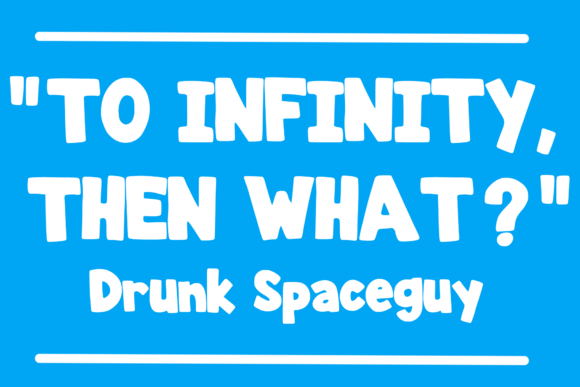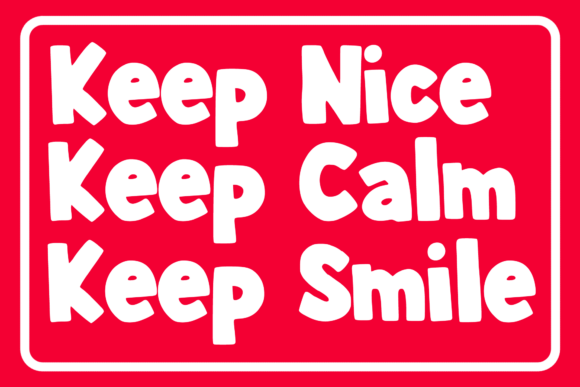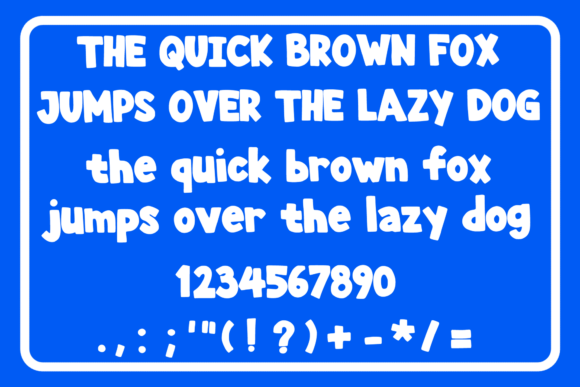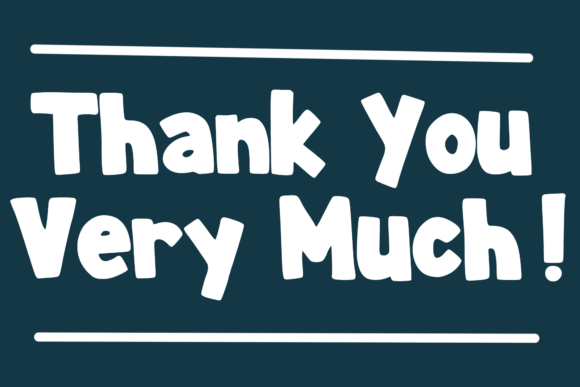
Unleashing the Fun with Big Bold Chunky Font
Remember the moment when you’re brainstorming ideas for a new project, and you need a font that screams ‘fun’ and ‘playful’? That’s when the perfect combination of creativity and typography comes into play. You’re probably thinking of the perfect font to match your design’s energetic vibe, and that’s where Big Bold Chunky Font comes in – a cartoon display font that brings boldness and joy to any design.
Whether you’re designing for kids, parties, or just want to add a youthful touch to your branding, Big Bold Chunky Font is the perfect choice. Its thick, chunky letterforms and lively personality make it a versatile font that works wonderfully for both print and digital projects. With Big Bold Chunky Font, you can add a burst of energy and personality to your designs, making them truly stand out.
Key Features of Big Bold Chunky Font
- Unique Characteristics: Distinctive chunky style, making it perfect for headings, titles, and bold statements in designs
Designer Review: Big Bold Chunky Font
First impressions count, and Big Bold Chunky Font certainly makes a statement. ✨ The font is as its name suggests – big, bold, and chunky. It’s perfect for headings and titles, where you want to draw attention to the content.
Here are some things that work well with Big Bold Chunky Font:
- High visibility: The font is easy to read from a distance, making it perfect for outdoor signage, billboards, and other large-format applications.
- Emotional connection: The font’s bold and chunky design can evoke feelings of excitement, energy, and playfulness, making it suitable for children’s products, entertainment, and sports.
- Flexibility: Big Bold Chunky Font comes in a range of weights, from light to black, allowing you to adjust the level of boldness to suit your design needs.
- Legibility: While the font is easy to read at a distance, it can be difficult to read at smaller sizes, particularly in body text.
- Limited use cases: Big Bold Chunky Font may not be the best choice for applications where a more subtle or elegant design is required, such as formal invitations, business cards, or luxury brands.
Overall, Big Bold Chunky Font is a great choice for designers looking to make a bold statement and add some excitement to their designs. While it may not be suitable for every project, it’s a versatile and eye-catching font that’s sure to turn heads. ⚠️ Just be mindful of the limitations and use it judiciously to avoid overwhelming your audience.
The Big Bold Chunky Font is ideal for:
- Creating attention-grabbing headlines and titles.
- Designing bold and playful graphics.
- Adding a touch of personality to your branding and marketing materials.
Remember to use the font in moderation and balance it with other design elements to avoid overwhelming your audience.